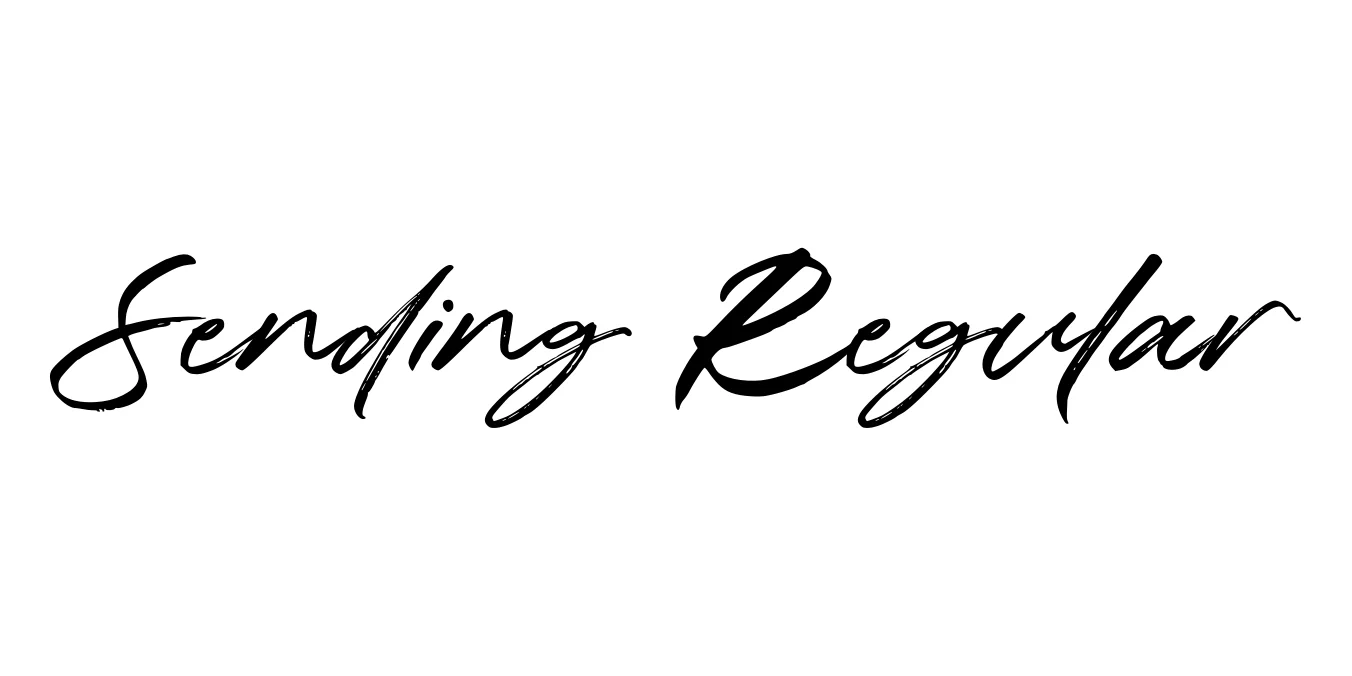
Sending Regular
Designed by Letterhend Studio
Sending Regular is a sophisticated and fluid script typeface designed to evoke a sense of elegance and personal touch. Developed by Letterhend Studio, this font features smooth, flowing strokes that mimic natural handwriting, making it a versatile choice for designers looking to add a human element to their digital work. Its balanced character set and elegant ligatures ensure that it remains readable while maintaining a high level of aesthetic appeal.
Originally released to cater to the growing demand for modern calligraphy, Sending has become a favorite in the world of branding and invitation design. Its timeless style bridges the gap between traditional penmanship and contemporary graphic design, allowing it to function beautifully across both print and digital mediums. Whether used for a luxury logo or a simple greeting card, Sending Regular provides a polished and professional finish.
Sending Regular Best Uses
Ideal for creating unique and memorable logos for luxury or boutique brands.
Perfect for eye-catching Instagram quotes and promotional graphics.
Highly recommended for wedding invitations, save-the-dates, and formal event programs.
Adds a sophisticated and personal touch to retail packaging and labels.